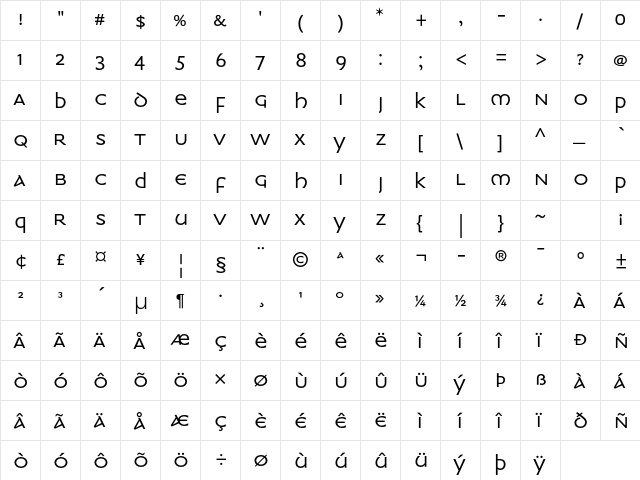
Medea ITC Std Book
| Designer | Silvio Napoleone |
Design Context for Medea ITC Std Typeface
Medea ITC Std is a composed and adaptable typeface that performs quietly and consistently across a wide range of design contexts.